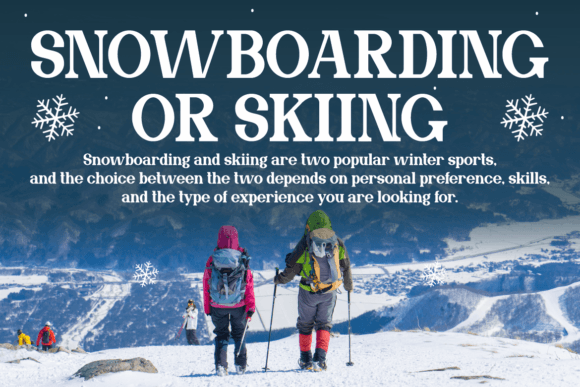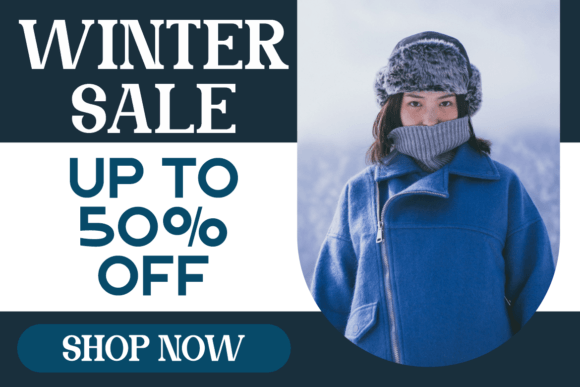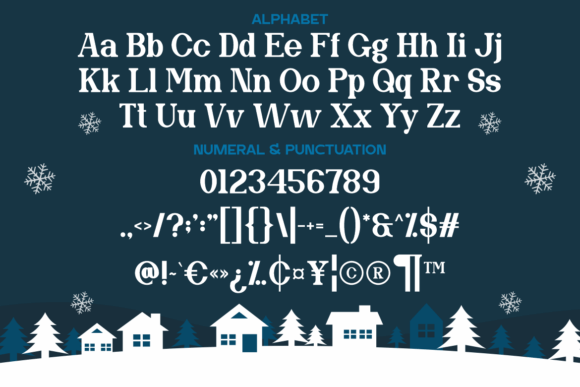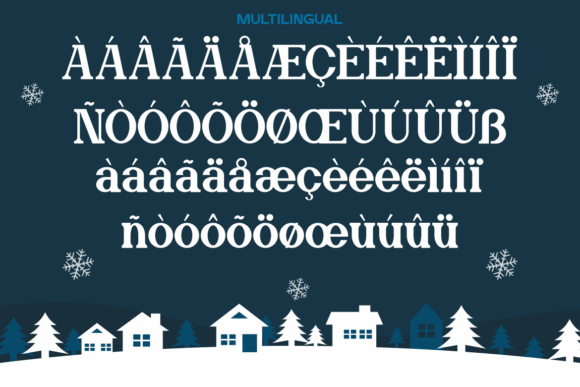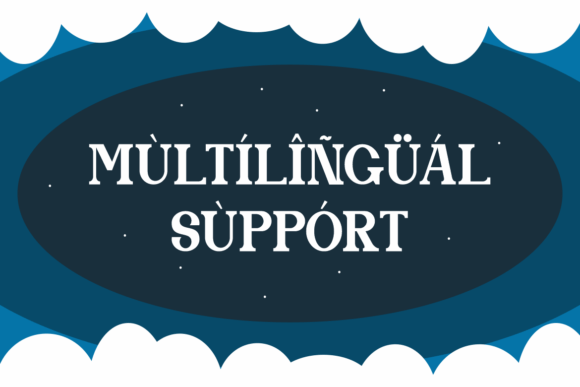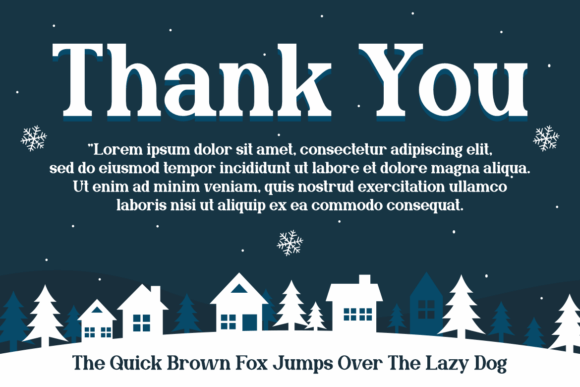
Frizen Land Font: The Ultimate Christmas Font for Designers and Crafters
As the holiday season approaches, designers and crafters are on the lookout for the perfect font to capture the essence of Christmas. Look no further than Frizen Land Font, a festive and fun font specifically designed to create a Christmas atmosphere and mood. In this article, we’ll dive into the world of Frizen Land Font, exploring its features, uses, and benefits for designers and crafters.
What is Frizen Land Font?
Frizen Land Font is a unique and eye-catching font designed to evoke the magic of Christmas. With its playful and whimsical style, this font is perfect for creating holiday-themed designs, from greeting cards to posters, and everything in between. Whether you’re a professional designer or a crafter looking to add a personal touch to your projects, Frizen Land Font is sure to impress.
Features of Frizen Land Font
So, what makes Frizen Land Font so special? Here are just a few of its standout features:
• Festive design: Frizen Land Font is specifically designed to create a Christmas atmosphere and mood, making it perfect for holiday-themed designs.
• Playful style: This font features a playful and whimsical style, adding a touch of fun and personality to any design.
• Versatile: Frizen Land Font can be used in a variety of design applications, from graphic design to crafting and DIY projects.
Uses of Frizen Land Font
Frizen Land Font is a versatile font that can be used in a variety of design applications, including:
• Graphic design: Use Frizen Land Font to create eye-catching holiday-themed graphics, such as posters, flyers, and social media graphics.
• Greeting cards: Add a personal touch to your holiday greeting cards with Frizen Land Font.
• Crafting: Use Frizen Land Font to create festive and fun DIY projects, such as holiday decorations, gift tags, and more.
• Web design: Add some holiday cheer to your website with Frizen Land Font, perfect for creating festive headers, titles, and more.
Tips for Using Frizen Land Font
Here are a few tips for getting the most out of Frizen Land Font:
• Experiment with colors: Try pairing Frizen Land Font with festive colors, such as red and green, to create a bold and eye-catching design.
• Mix and match: Combine Frizen Land Font with other fonts and design elements to create a unique and visually appealing design.
• Keep it simple: Don’t be afraid to keep your design simple and clean, allowing Frizen Land Font to take center stage.